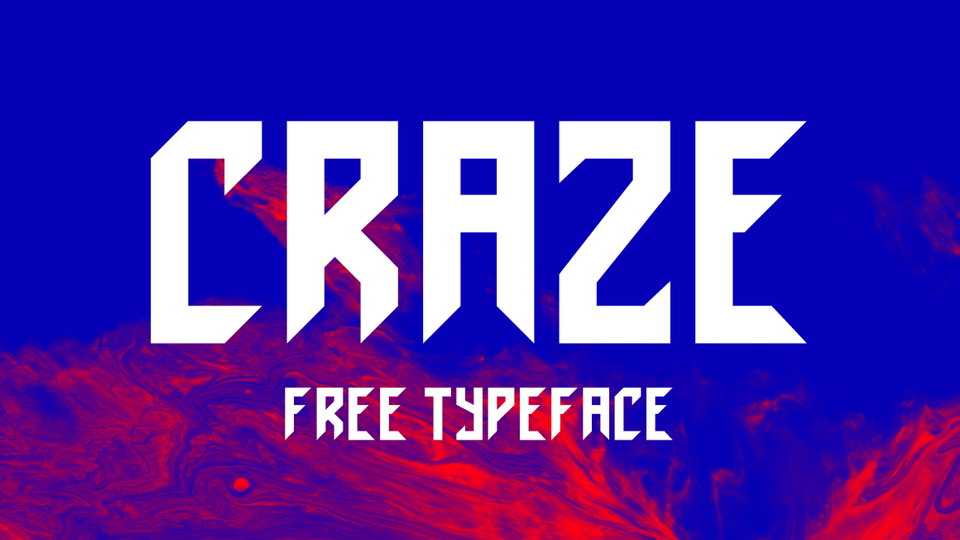
Download Craze font a creative display font with a nice, sharp, pointy fands that’ll rip your heads off. Great for headlines, posters, logos and labels and other typographic projects.
Designer: Andres Lugo